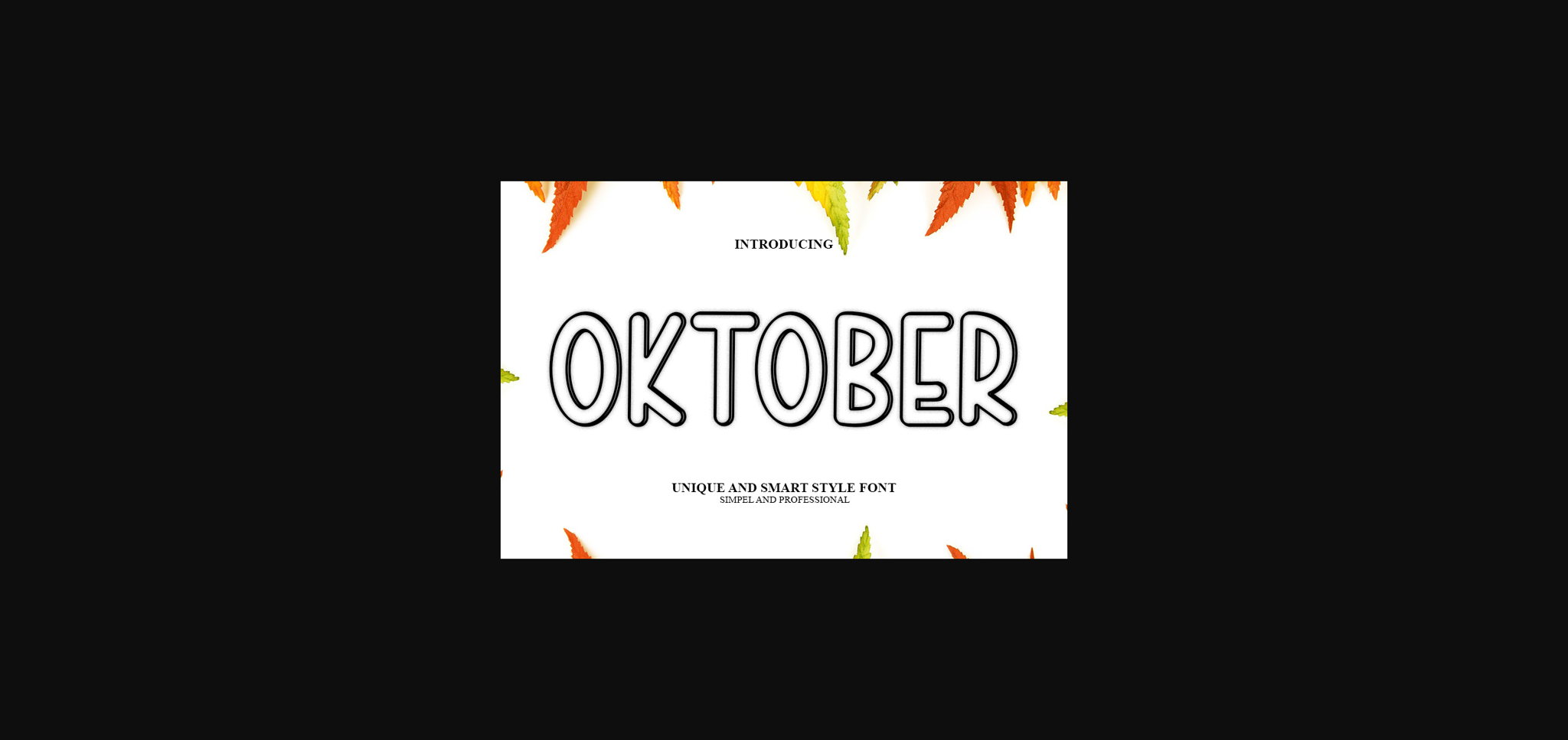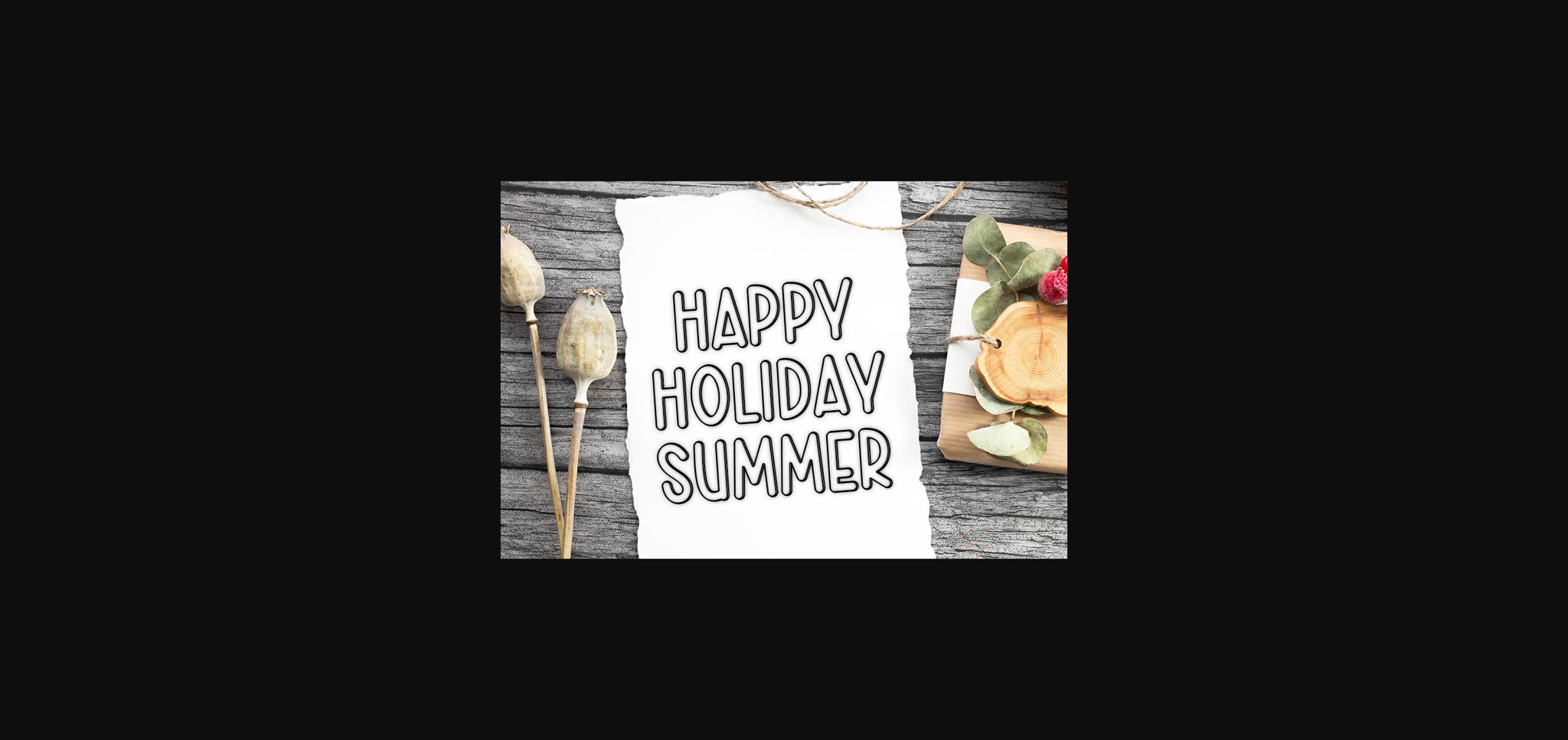
About Oktober Font
Oktober is a cool and modern sans-serif font. Whether you’re using it for crafts, digital design, presentations, or making greeting cards, this font has the potential to become your favorite go-to font, no matter the occasion.